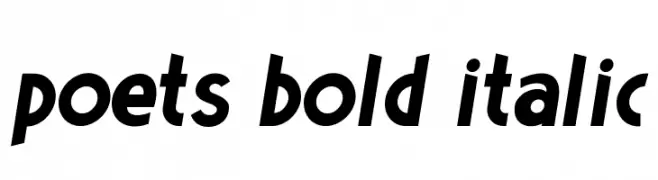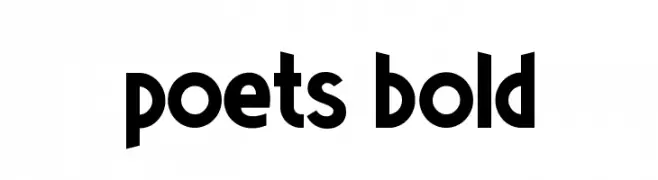
( Valdeir Junior )
A bold, modern font with thick, rounded strokes and tight spacing.
( Valdeir Junior )
A bold and italicized typeface with a modern and dynamic style.